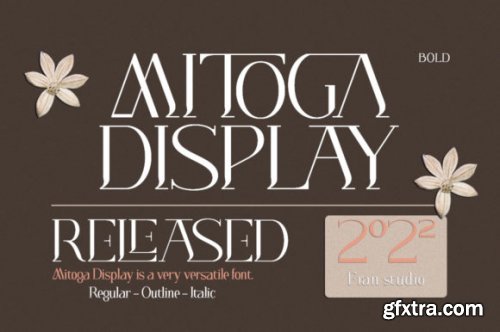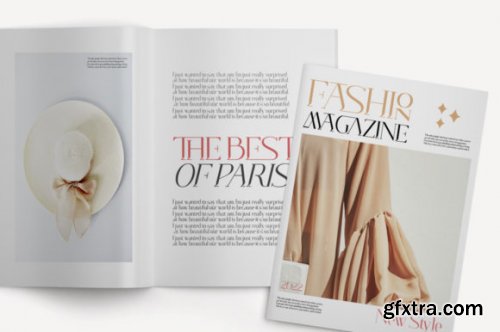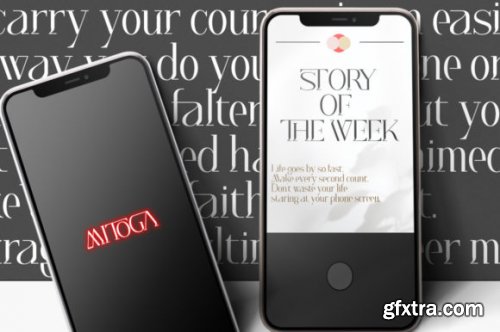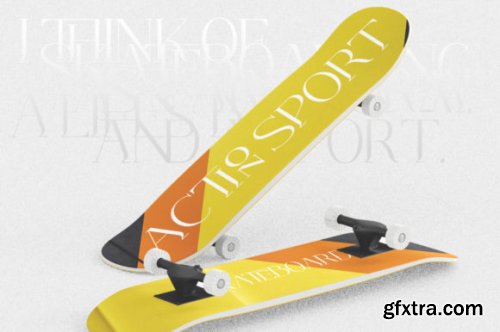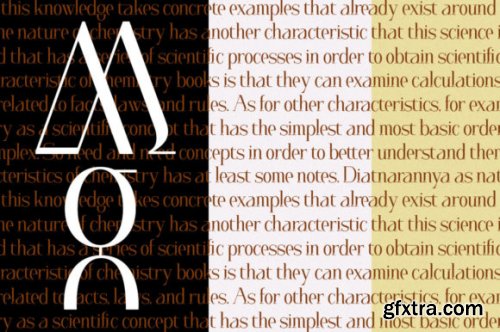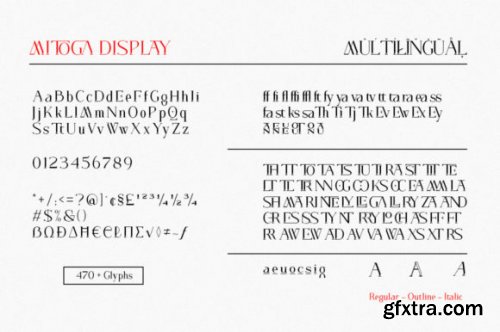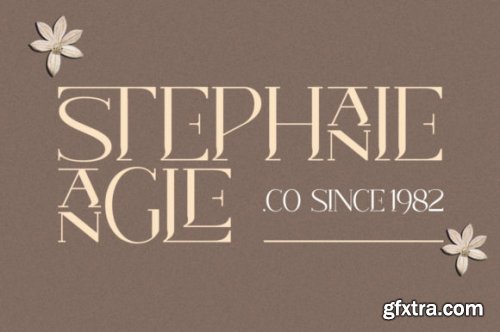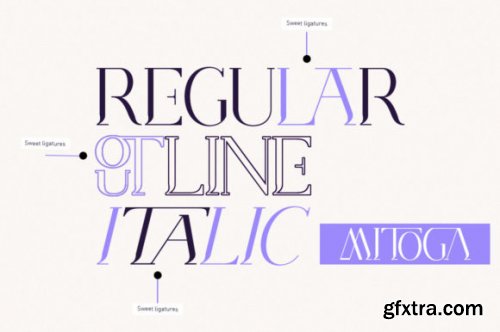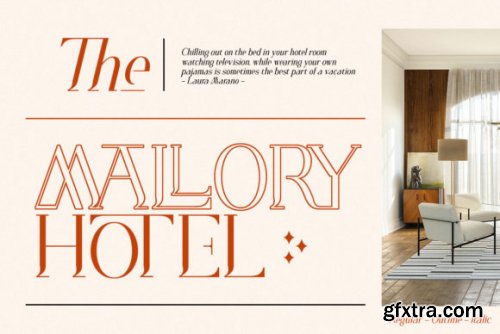
Mitoga Display Font
Mitoga Display is a very versatile font. This original look will appeal to a wide range of crafty ideas, it is perfect for magazine images, wedding invitations, branding, poster design, and more. This font is PUA encoded which means you can access all of the amazing glyphs and ligatures with ease!